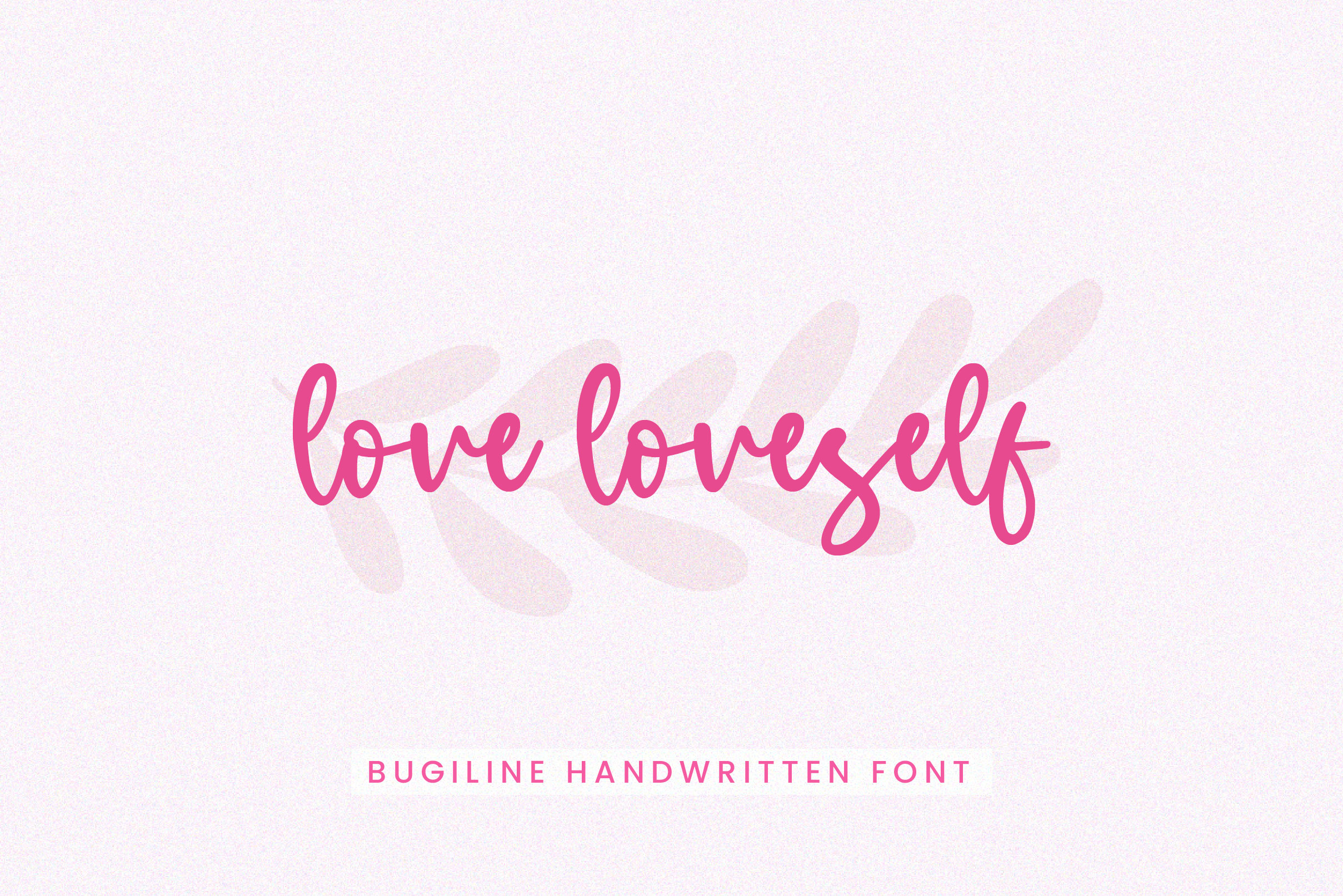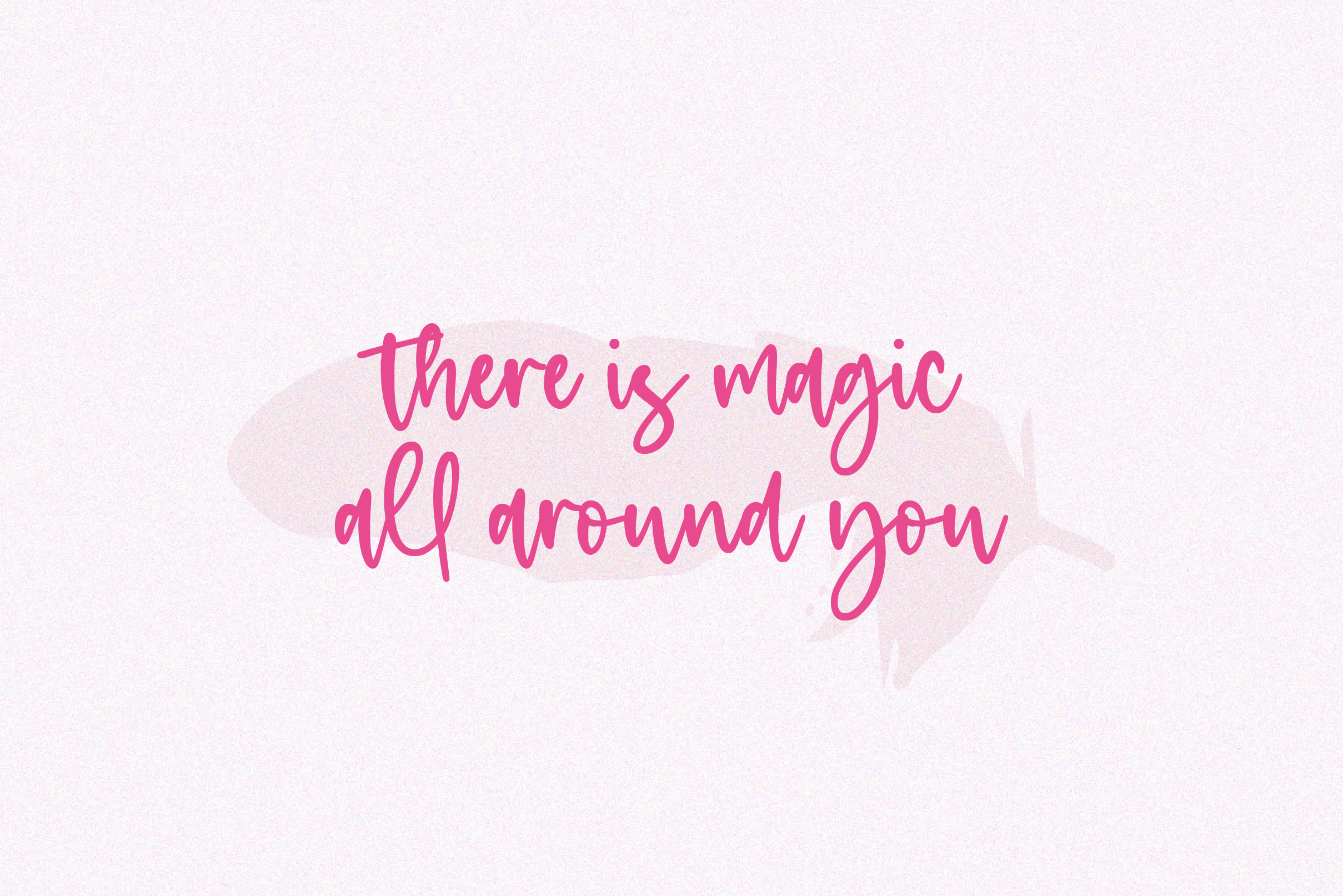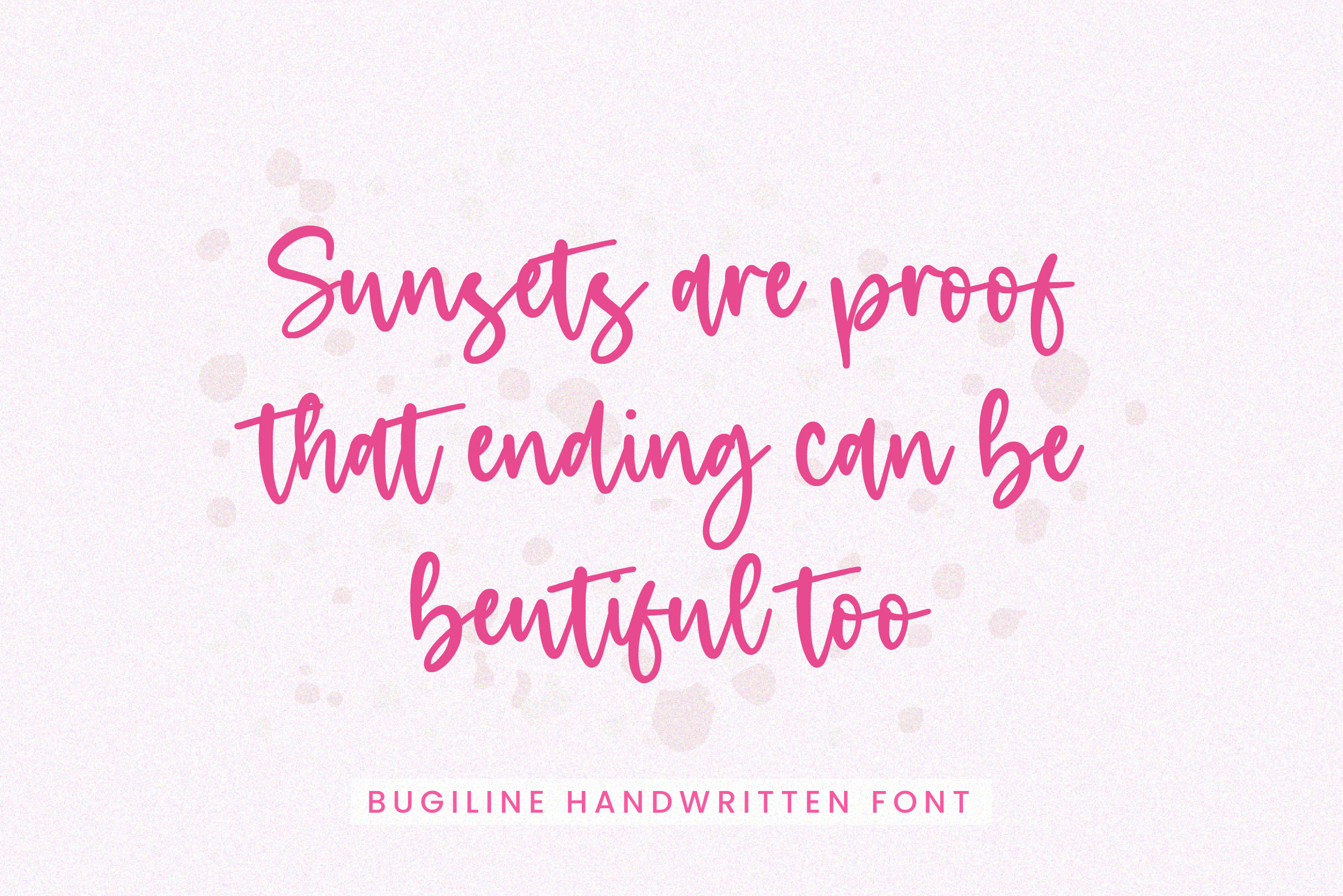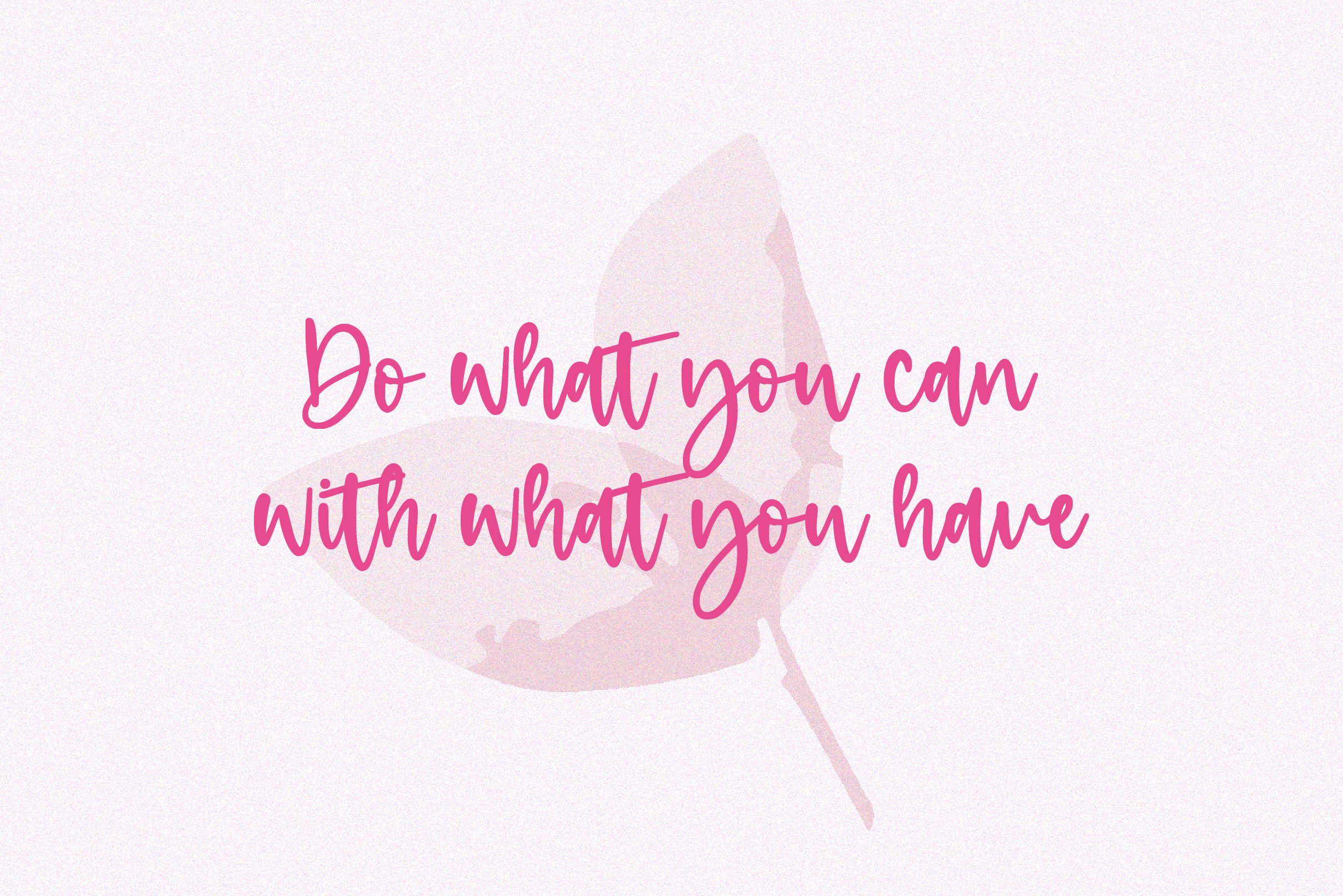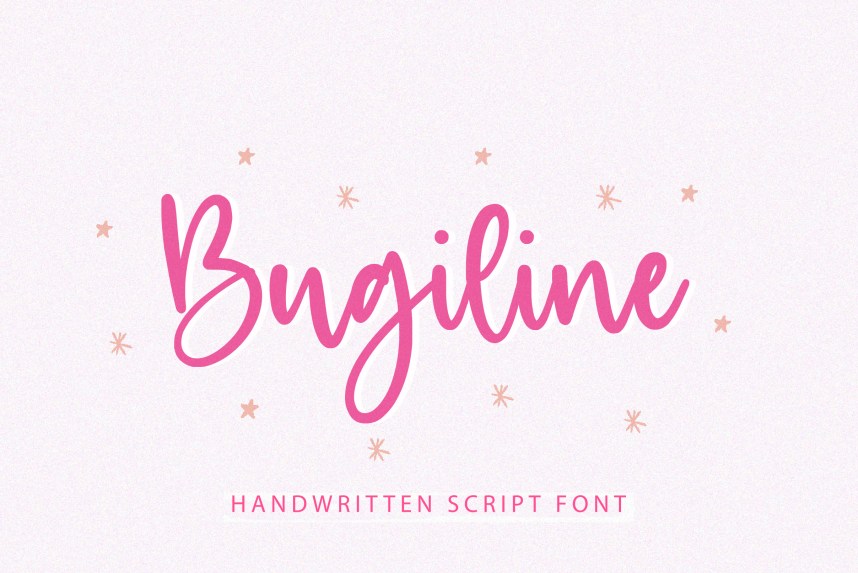
Bugiline Font
Bugiline Script Font is a delicate, elegant, and flowing handwritten font. It has beautiful and well-balanced characters and as a result, it matches a wide pool of designs.